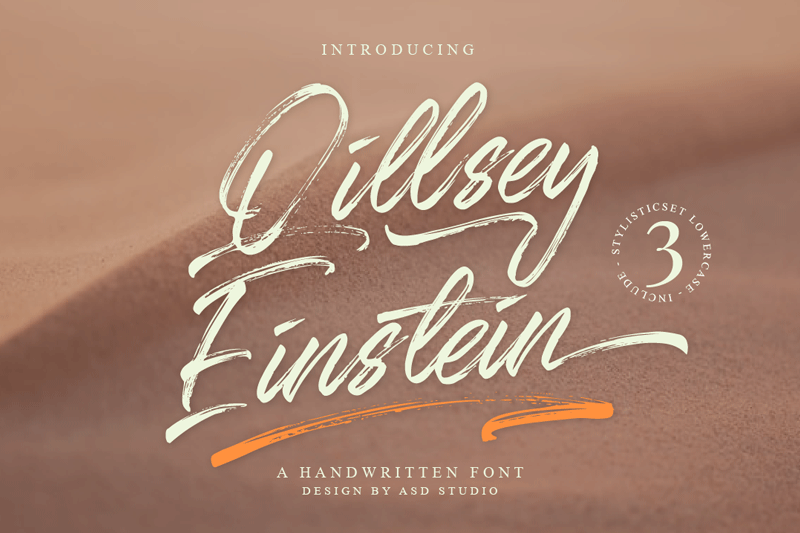
Preview and download Qillsey Einstein Font. Created by Ghazi Humam Fauzan in Script Brush styles with Free for personal use license.
Introducing the new font Qillsey Einstein, a type of script that has a natural scratch texture. I made Qillsey Einstein by using a Japanese calligraphy pen that makes the impression seem natural. My font is complete with 3 pieces of StylisticSet which will make the writing more beautiful and charming. This typeface is suitable for use in a variety of design fields, such as event advertisements, product promotions, book titles, activity titles, logos, adventure, and others. This font can when paired with serif font types will make your design project more beautiful and perfect. The file I uploaded included: Qillsey Einstein (ttf, otf, and woff) I highly recommend using a program that supports OpenType featuresand Glyphs panels such as Adobe Illustrator, Adobe Photoshop CC, Adobe InDesign, or CorelDraw, so you can see and access all Glyph variations. This font is encoded with Unicode PUA, which allows full access toall additional characters without having special design software. Mac users can use Font Book, and Windows users can use Character Map to view and copy one of the extra characters to paste into your favorite text editor / application. If you need for Commercial use or extended license, you can call me at ->> emailnya.ghazi@gmail.com or visit this link: https://www.creativefabrica.com/designer/asd-studio/ref/235786 More... |